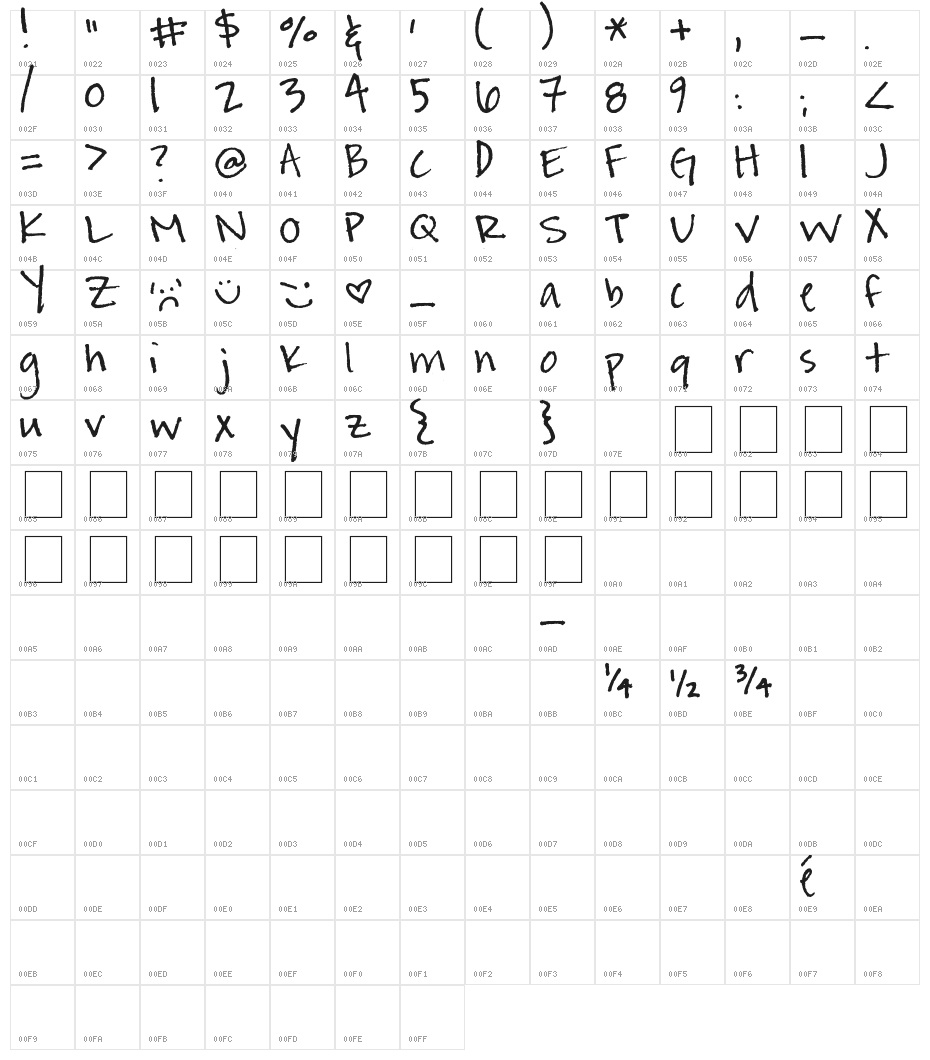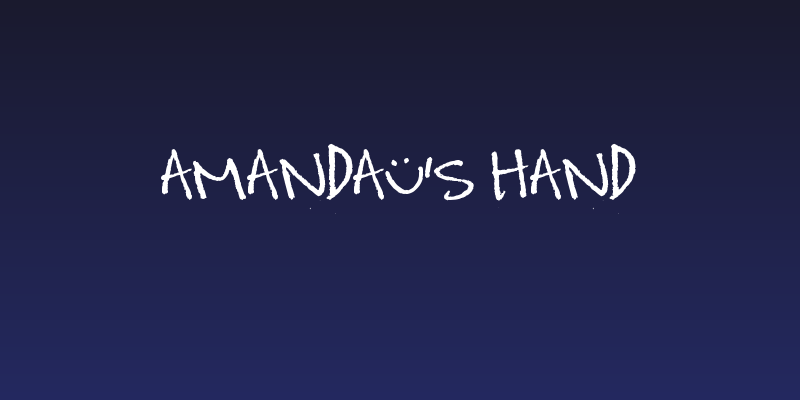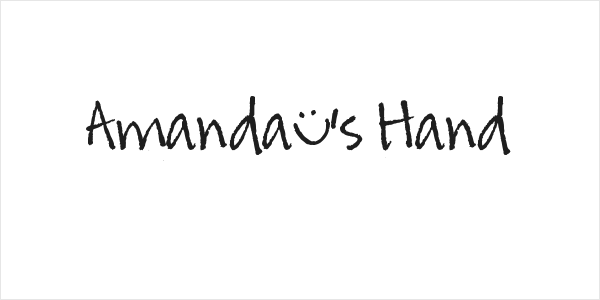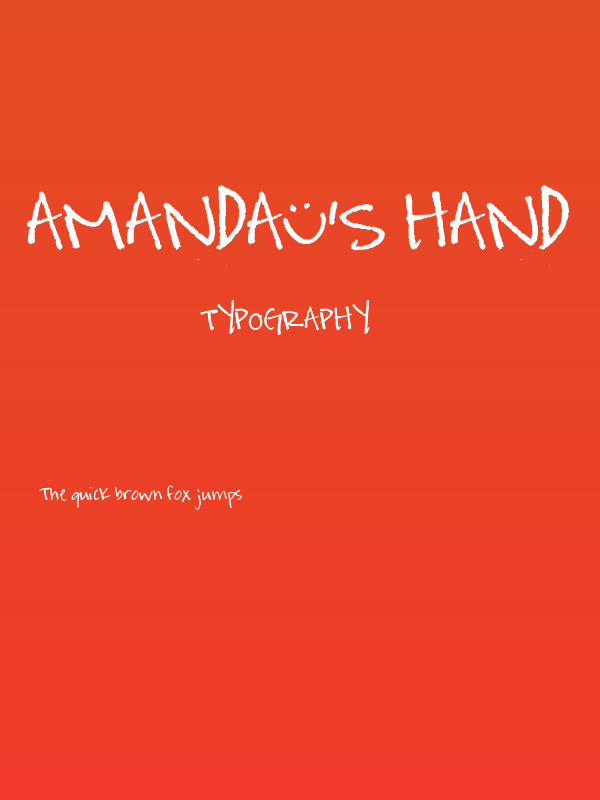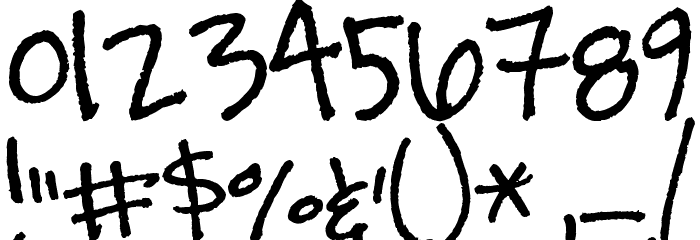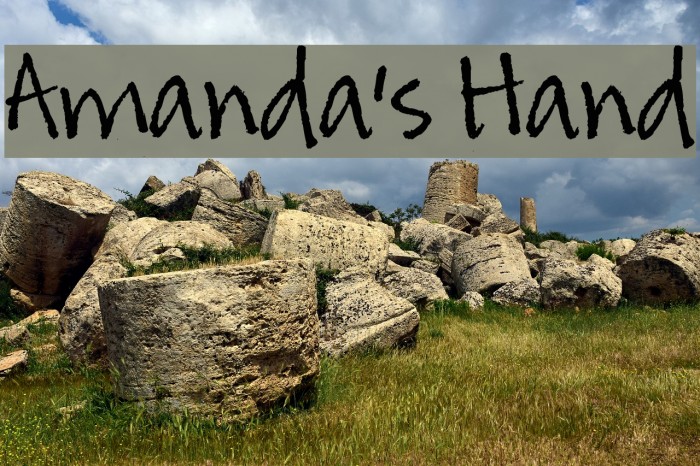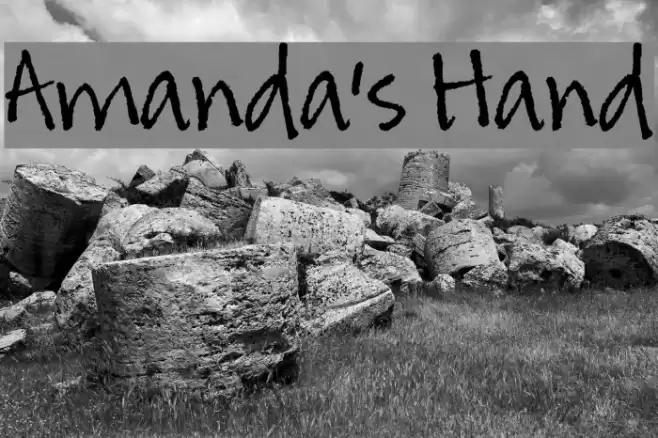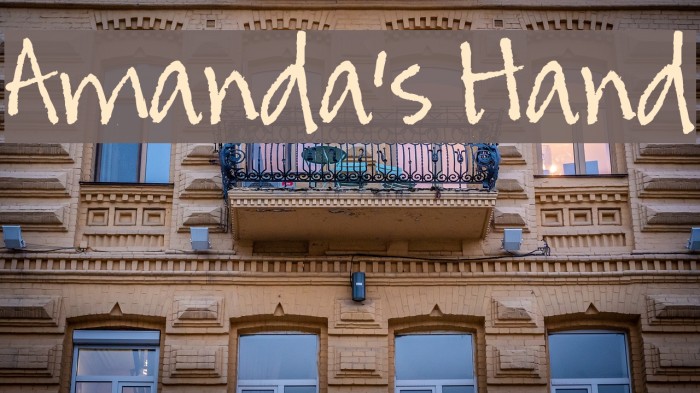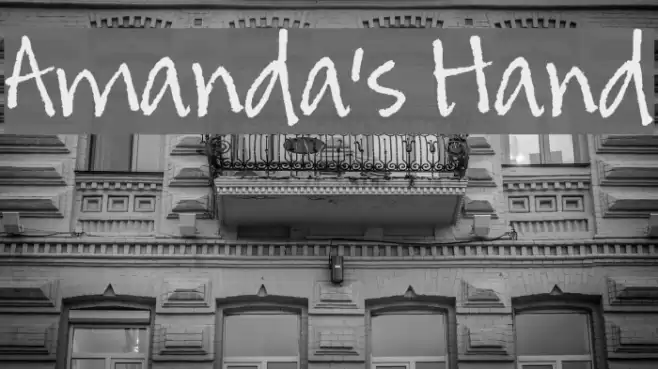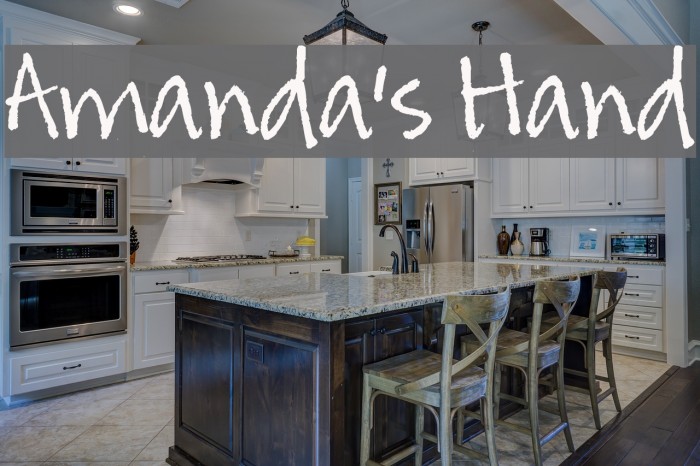
Amanda's Hand Font
| Gesamtstil | Casual, Playful |
| Anwendungsfall | Headlines, Informal text, Creative projects |
| Vorgeschlagene Projekte | Ideal for greeting cards, personal notes, informal invitations, and creative projects that require a personal touch. |